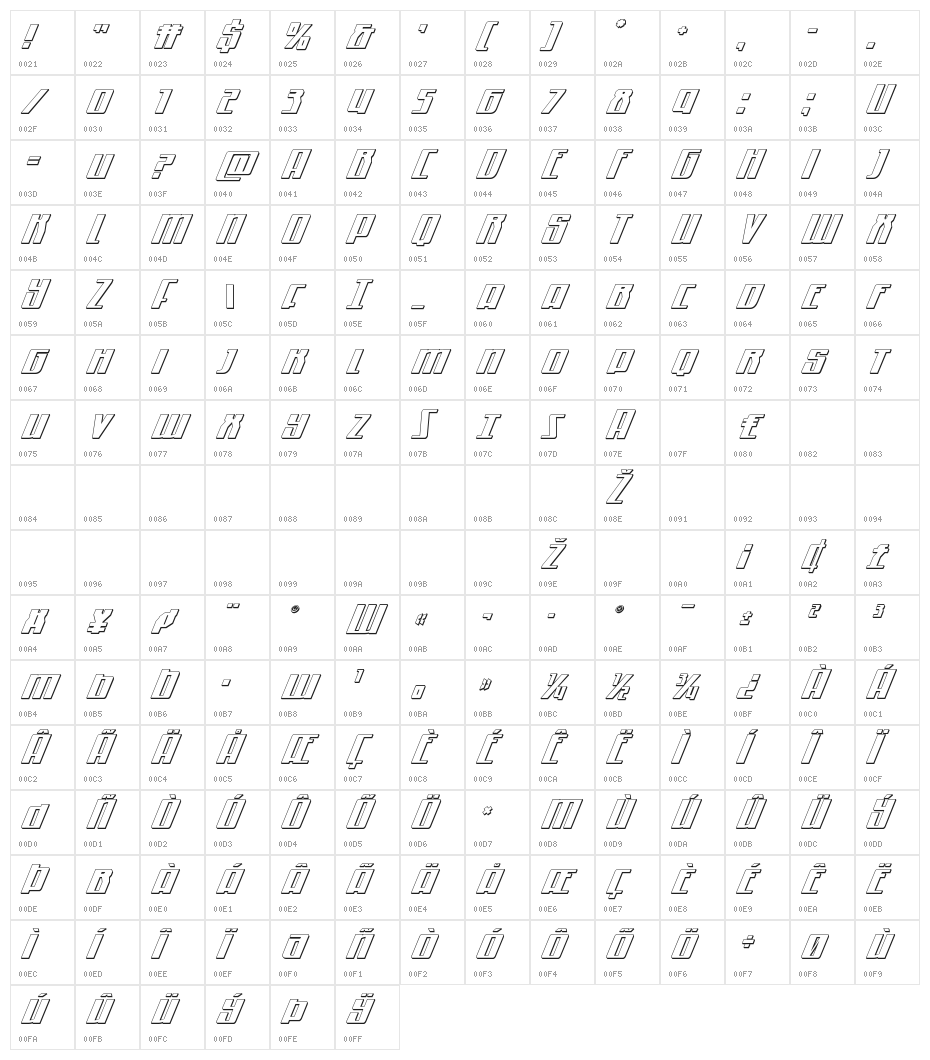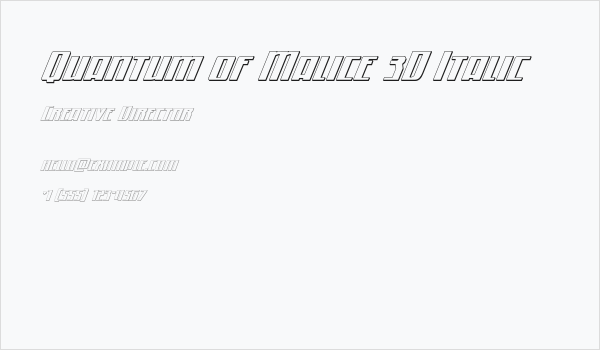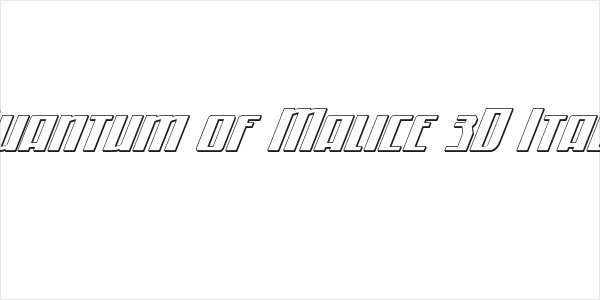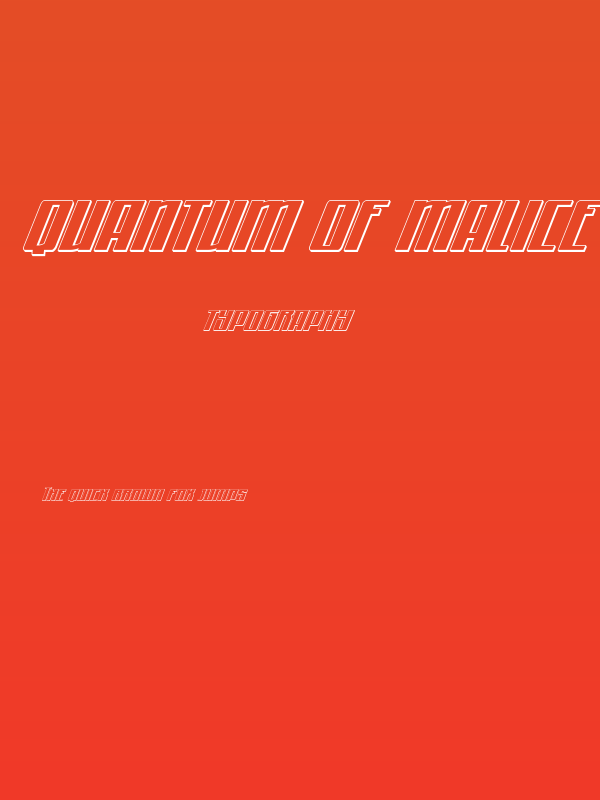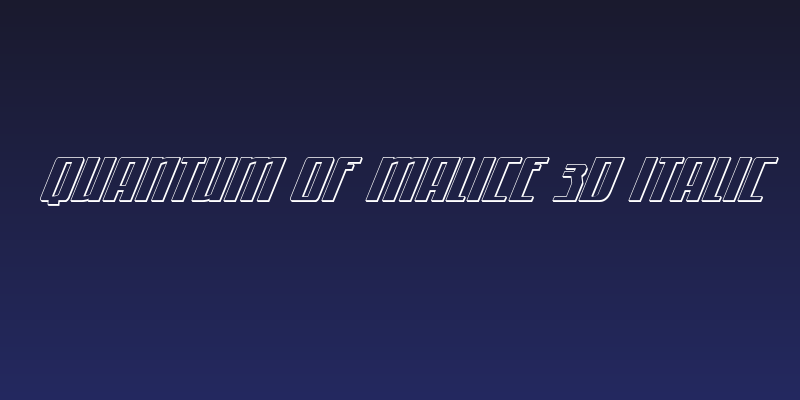
Quantum of Malice 3D Italic Font
Quantum of Malice 3D Italic Description
This font features a bold, italicized style with a distinct 3D effect, giving it a futuristic and dynamic appearance. The characters are outlined, creating a sense of depth and movement. The uppercase and lowercase letters maintain a consistent slant, enhancing the italicized look. The numbers and special characters follow the same design principles, ensuring uniformity across the font. The overall design is modern and eye-catching, suitable for projects that require a strong visual impact.
| Proposed Projects | Ideal for video game titles, sci-fi movie posters, tech branding, and any project needing a modern, impactful typeface. |